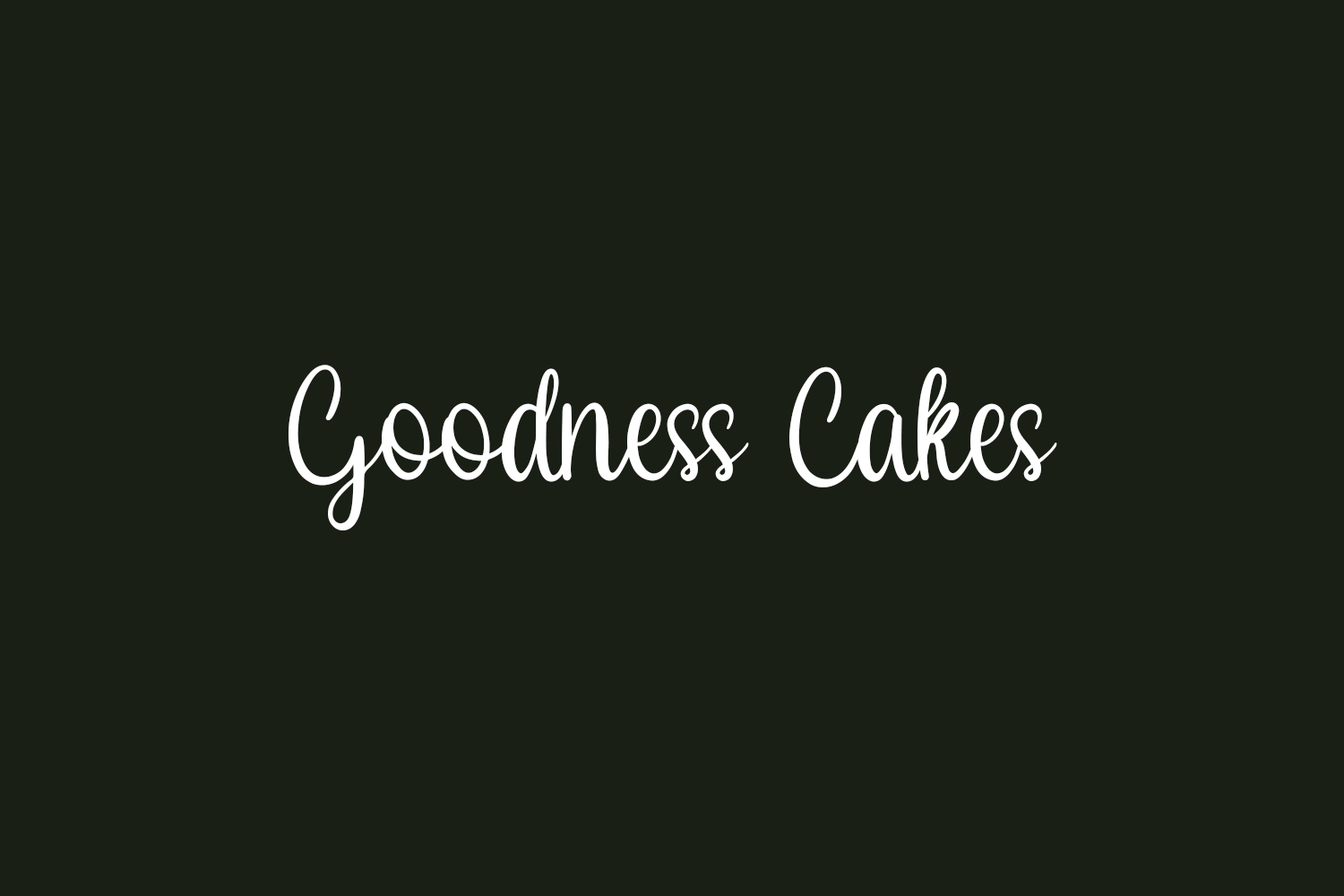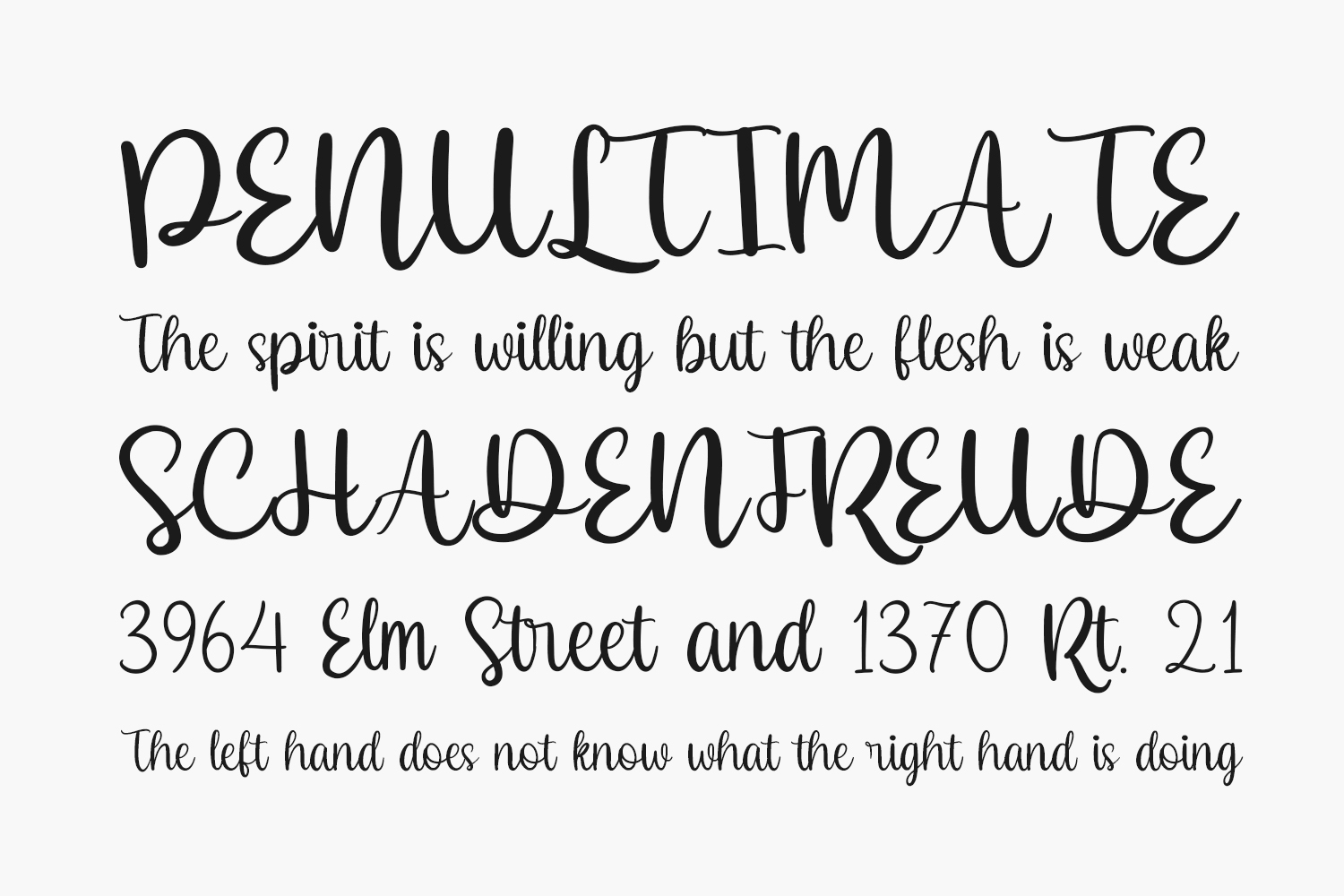
Goodness Cakes Free Font is a beautiful light handwritten font with a unique feel and a stunning impact. It will add a luxury spark to any design project that you wish to create. Goodness Cakes Free Font was designed by Allouse Studio and is free for personal use only. Please purchase the full version for commercial use.